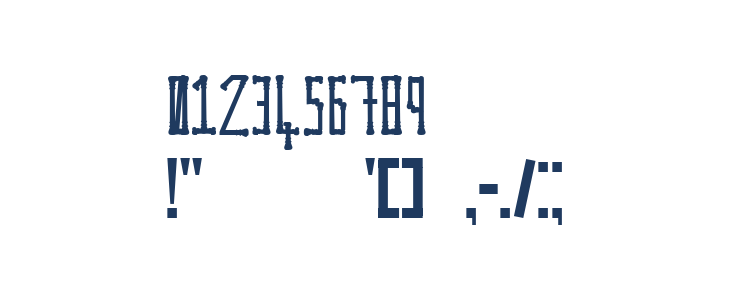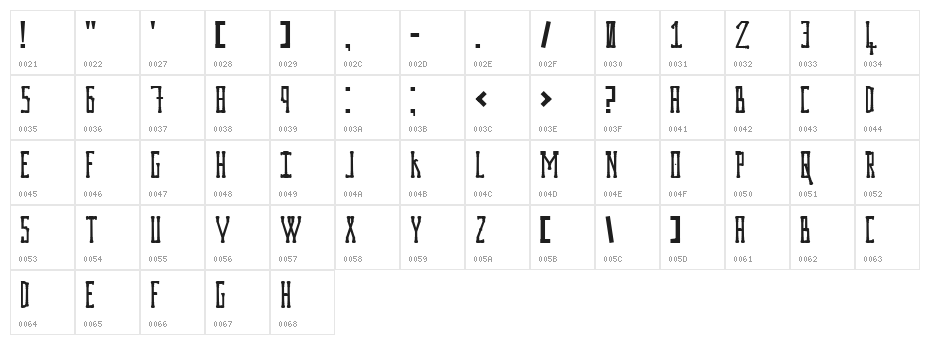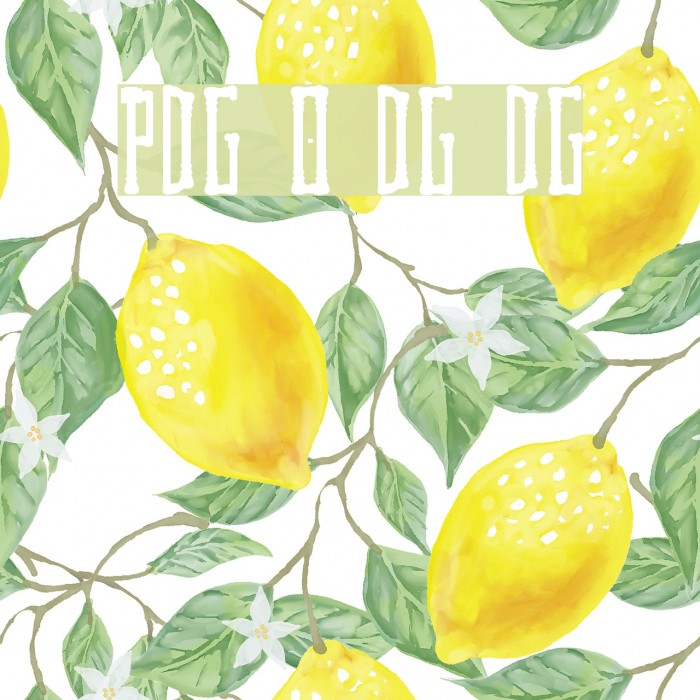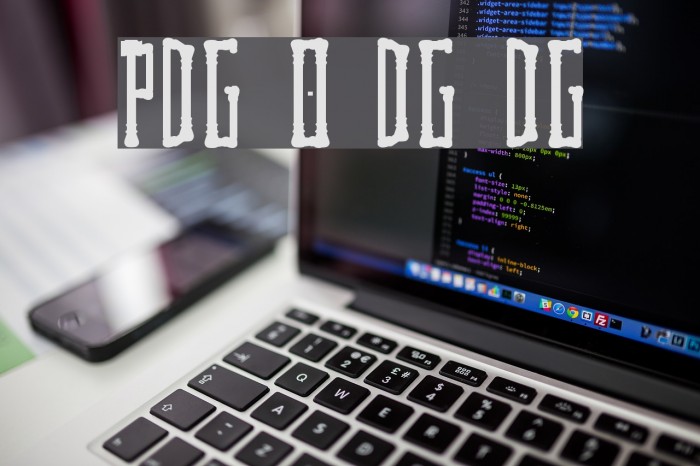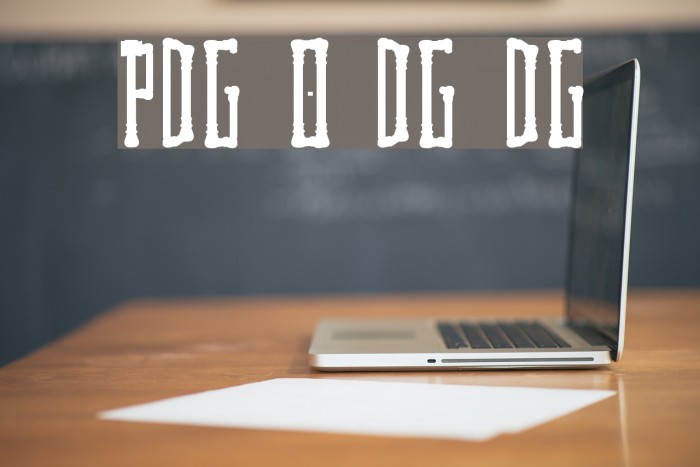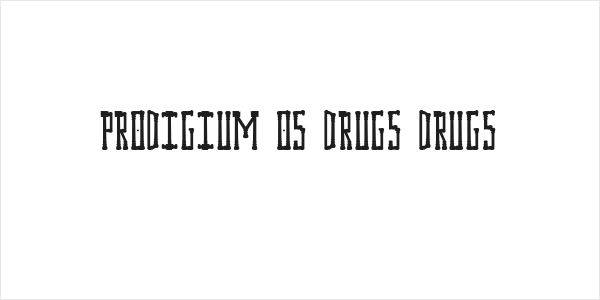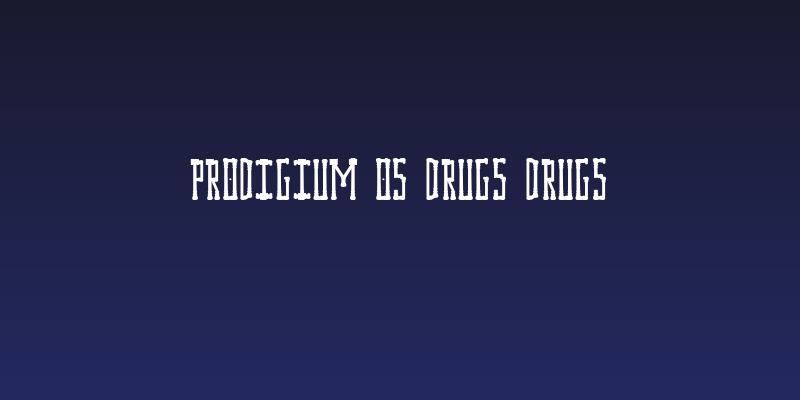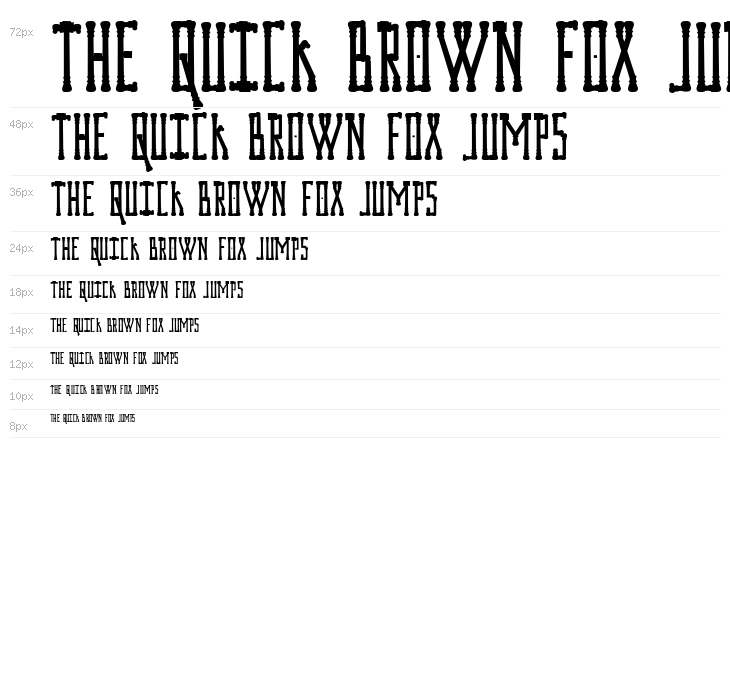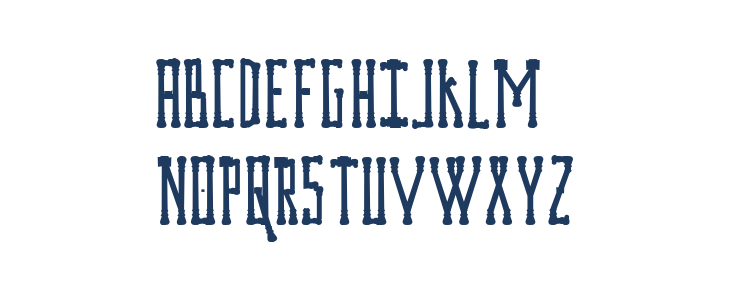
Prodigium Os Drugs Drugs Font
Prodigium Os Drugs Drugs Description
This font features a bold and decorative style with a unique, almost mechanical appearance. The characters are tall and narrow, with distinct serifs that resemble small gears or mechanical parts, giving it an industrial feel. The uppercase and lowercase letters maintain a consistent height and width, creating a uniform look across the typeface. The numbers and special characters follow the same design principles, ensuring cohesion throughout. This font's intricate details and bold presence make it stand out, suitable for projects that require a strong visual impact.
| Overall Style | Industrial, Decorative |
| Proposed Projects | Ideal for posters, branding, album covers, and any design needing a bold, industrial look. |